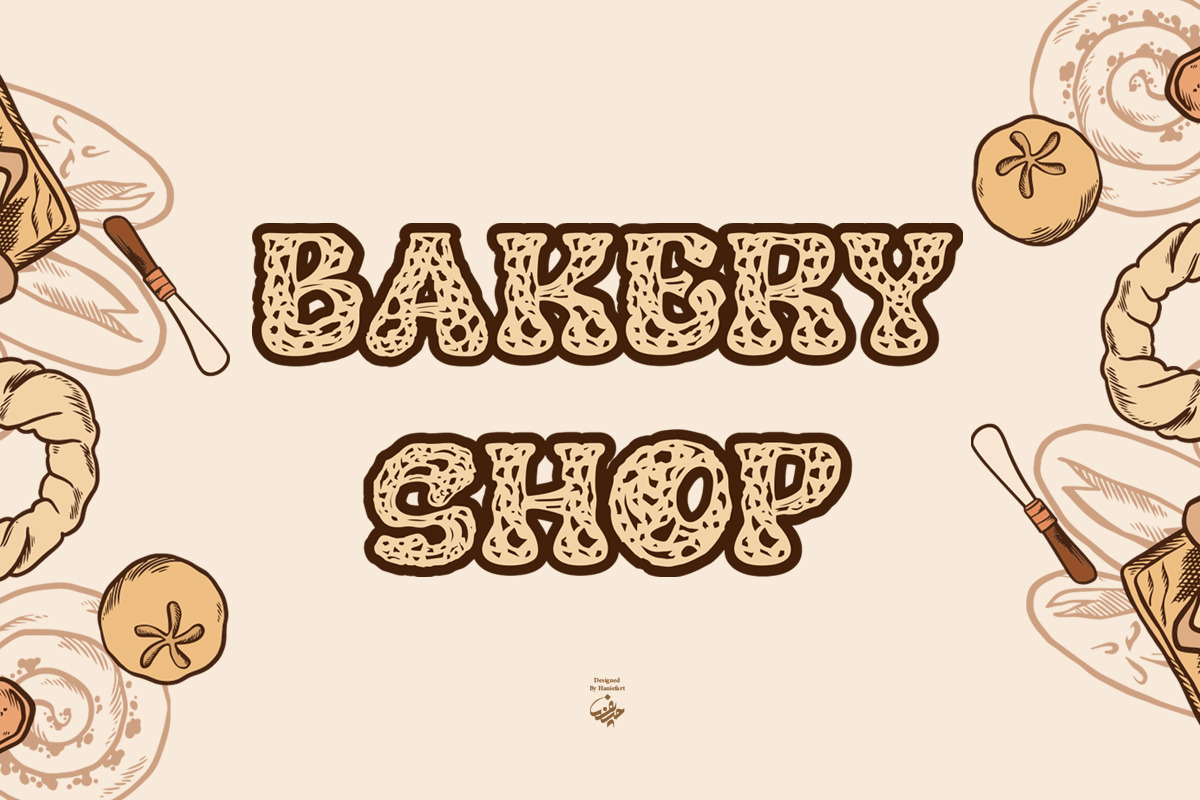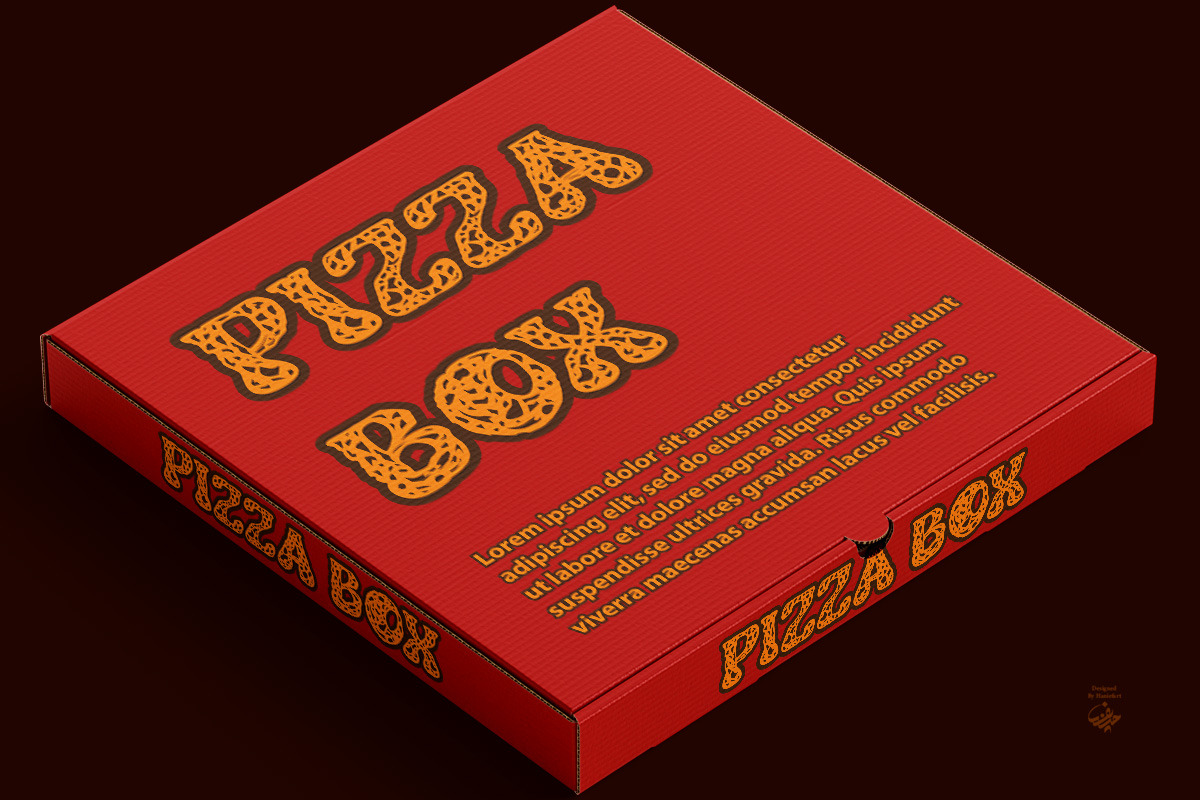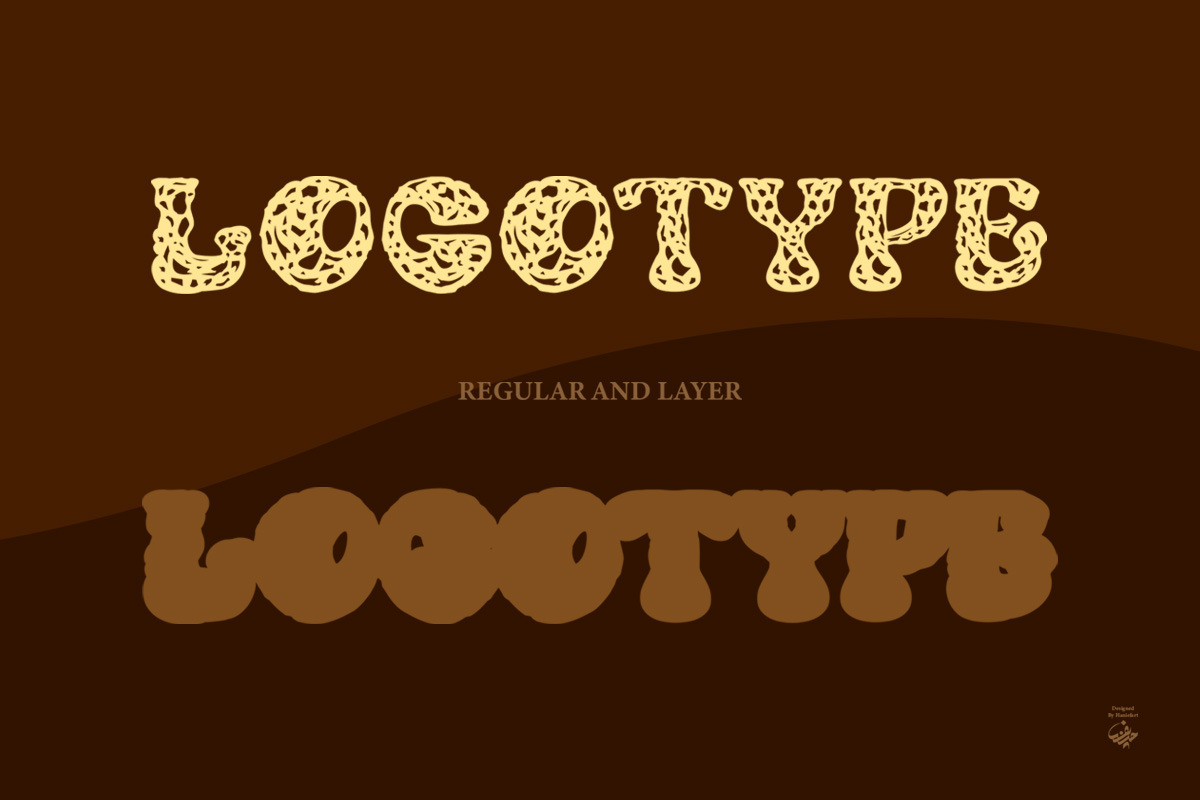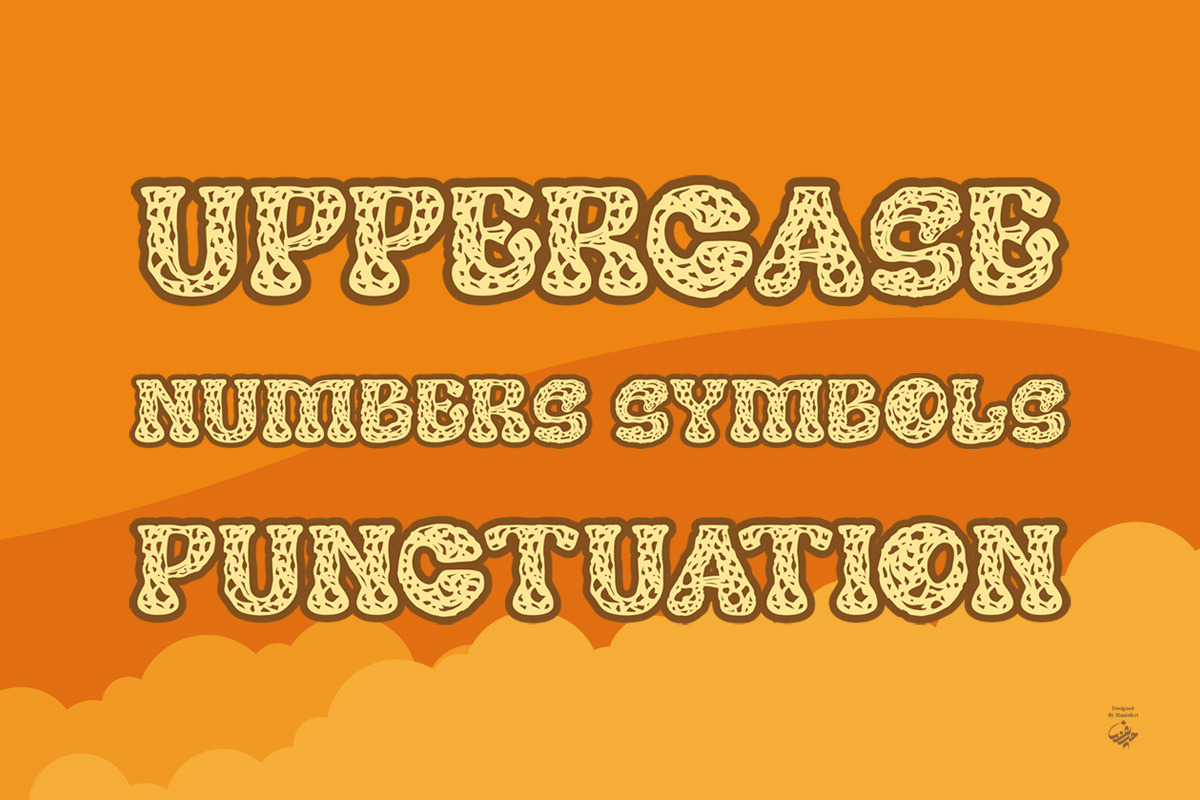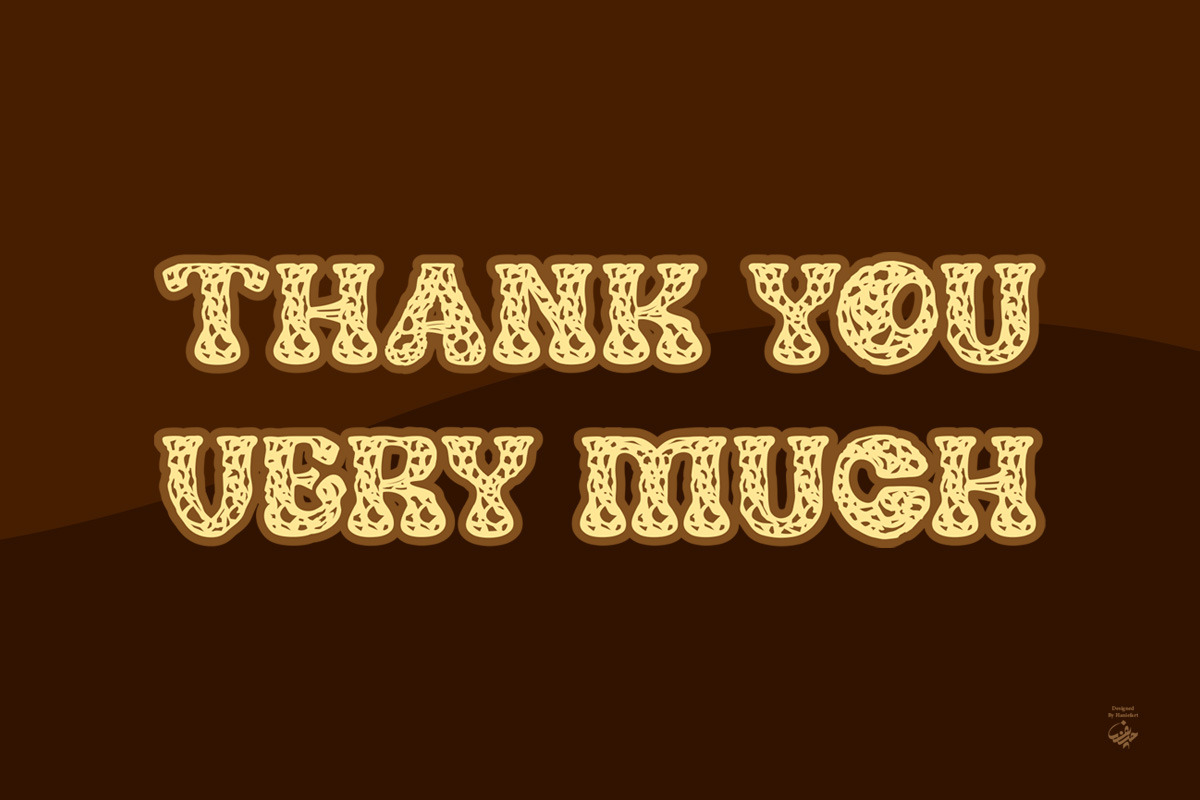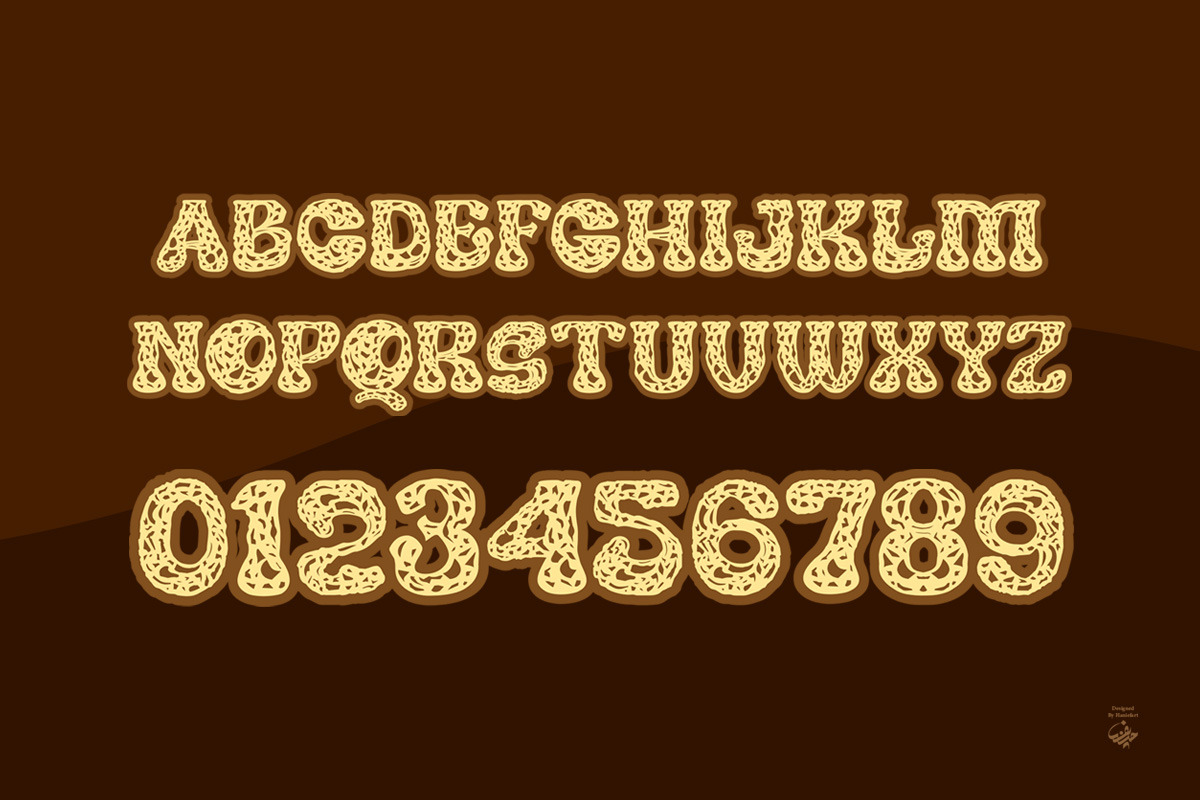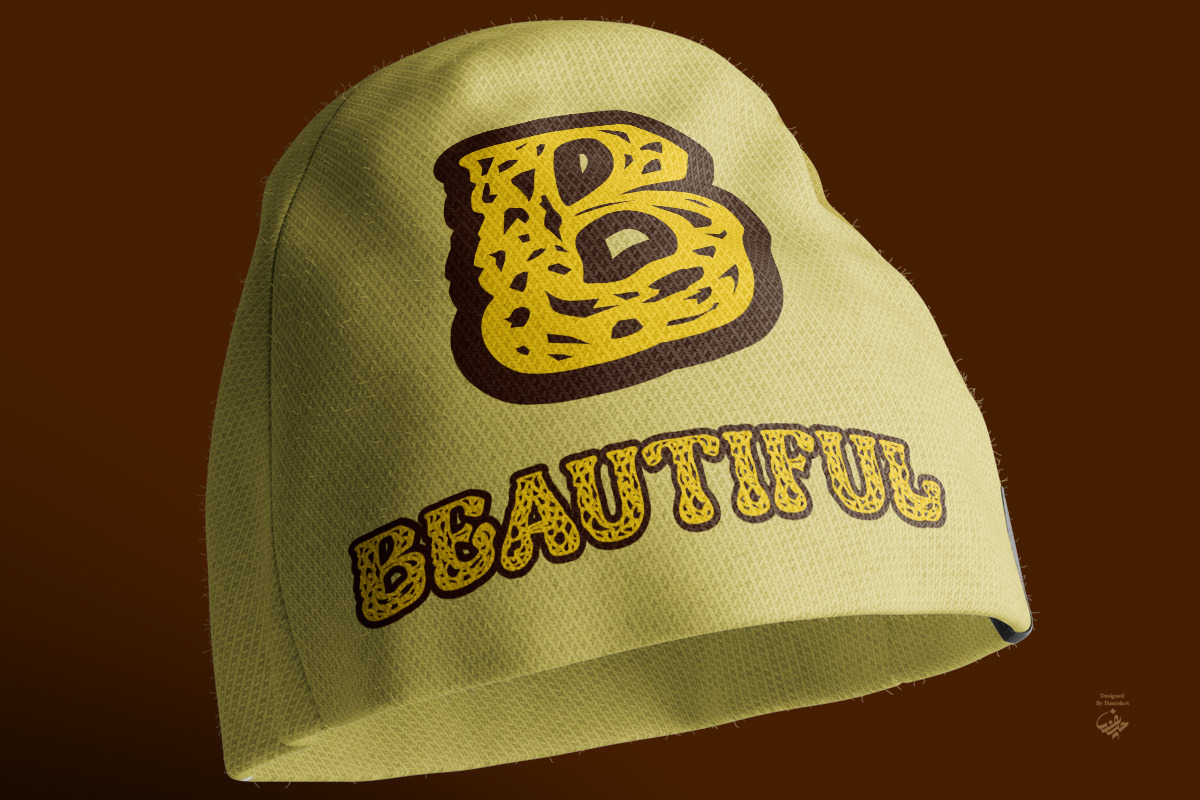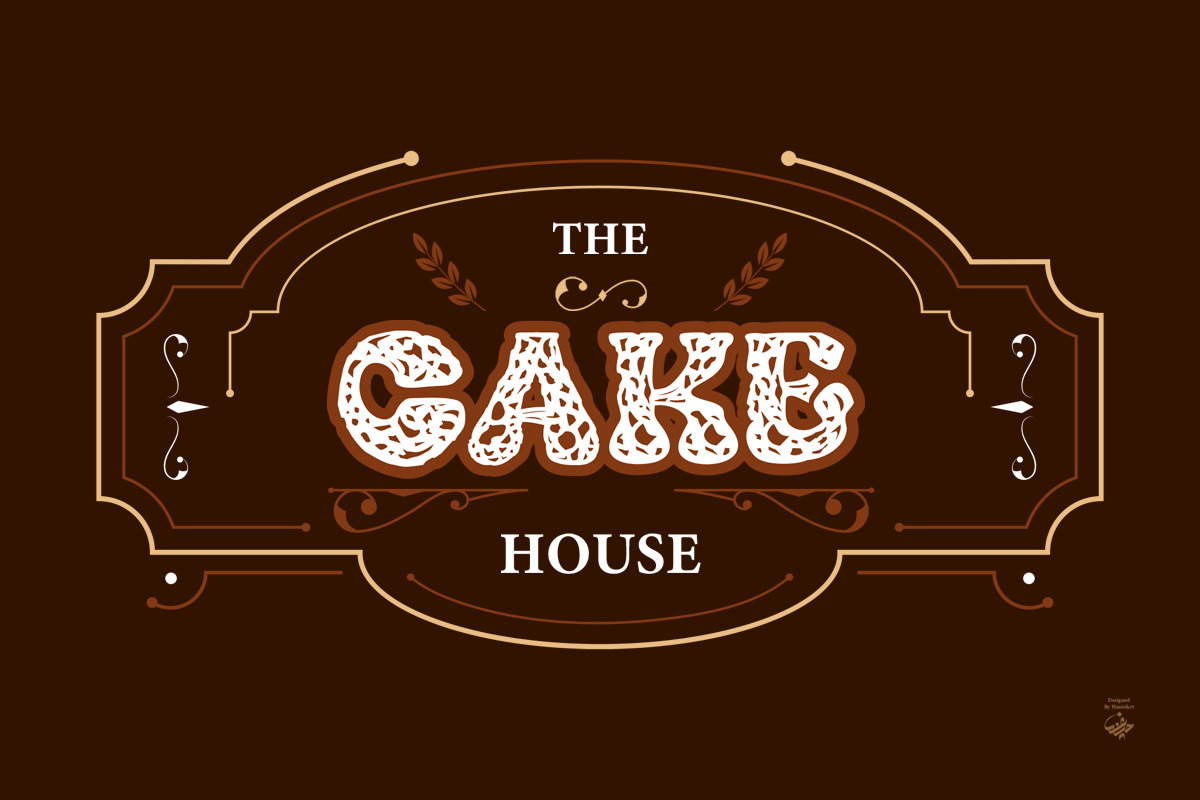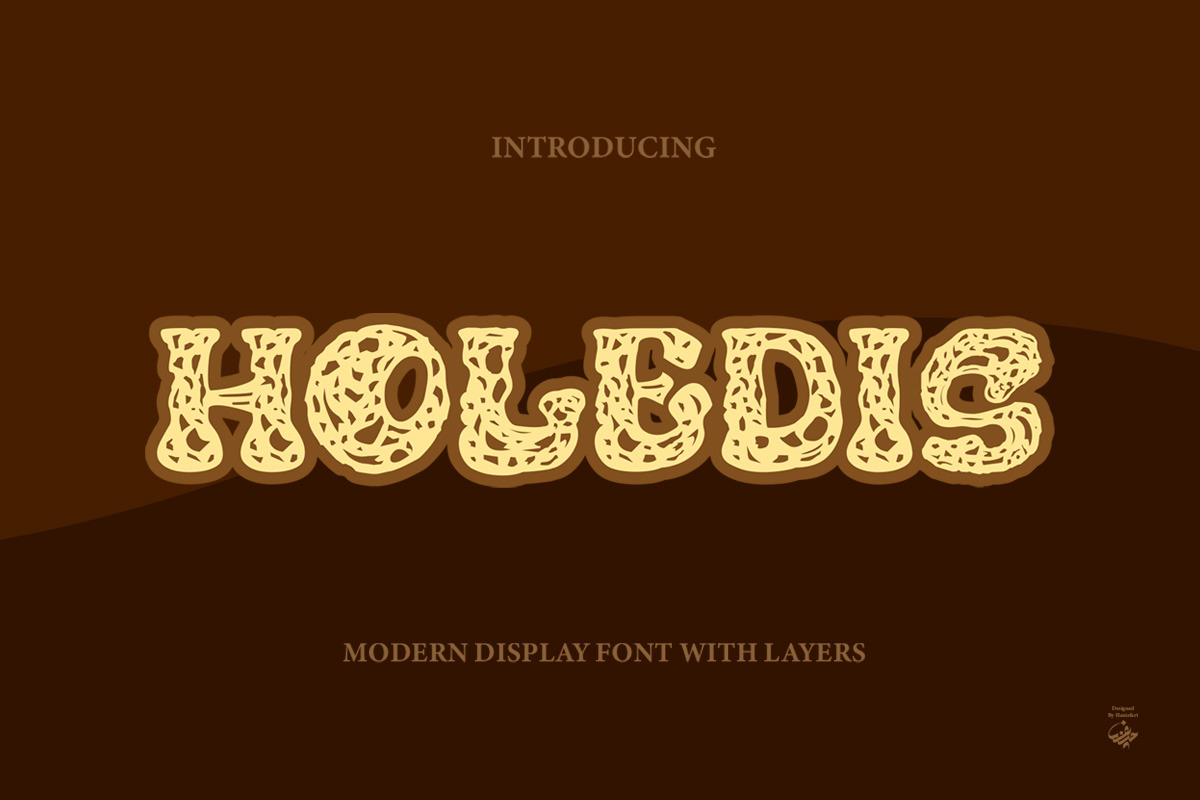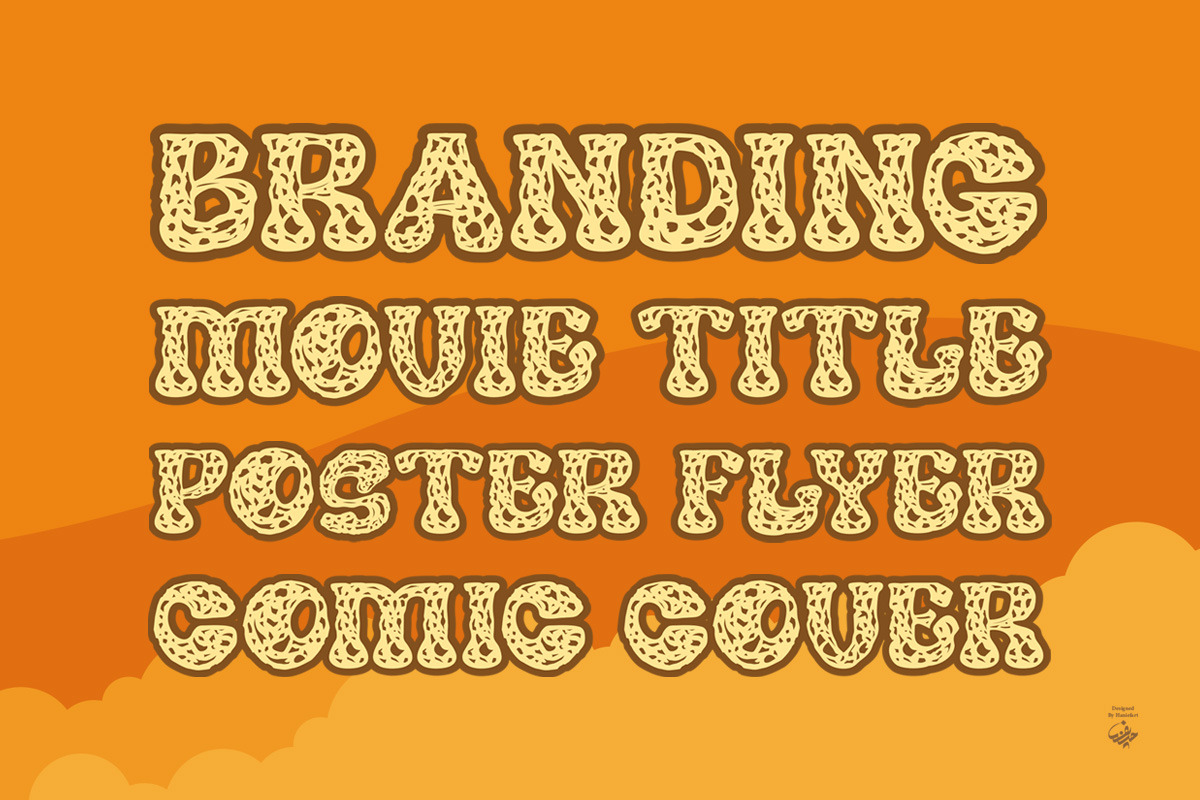
Holedis - Modern Display Layer Font
Holedis is an artistic handmade font with a unique and modern hollow capital letter style. With a combination of a slightly striking back layer to look attractive and elegant beauty.
Holedis can be used for various purposes such as branding, logos, book covers, comics, movie titles, labels, t-shirts, trademarks, flyers, banners and many more.
The subtlety embedded in Holedis serves as a rich addition to any creative endeavor, enhancing its appeal and giving an aura of luxury to various creative projects.